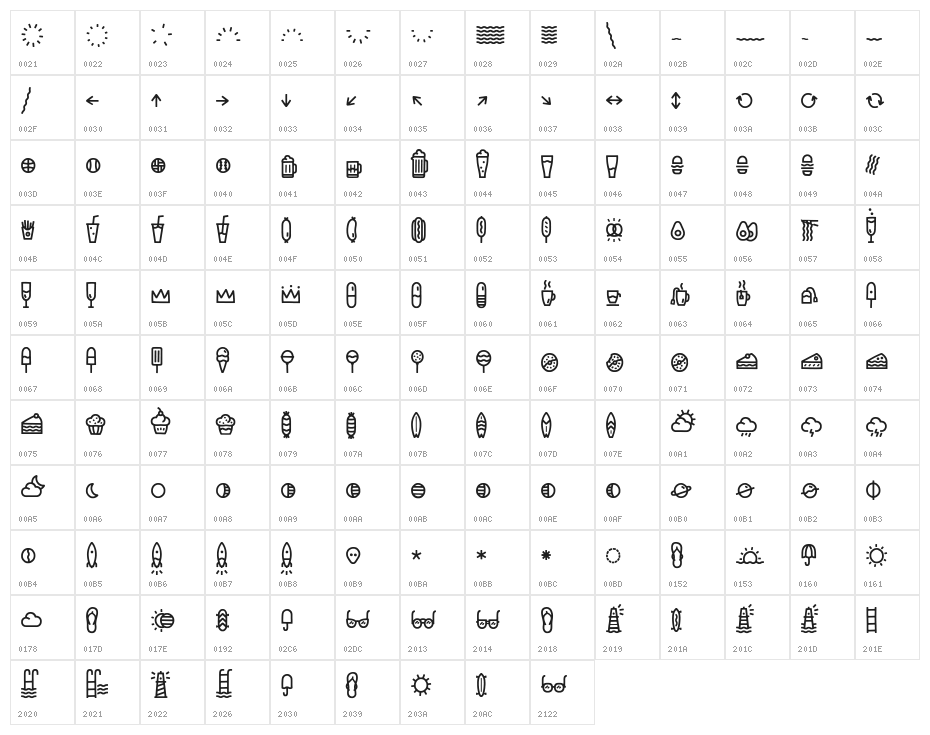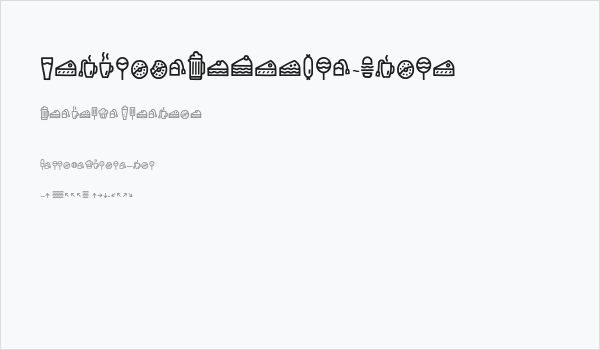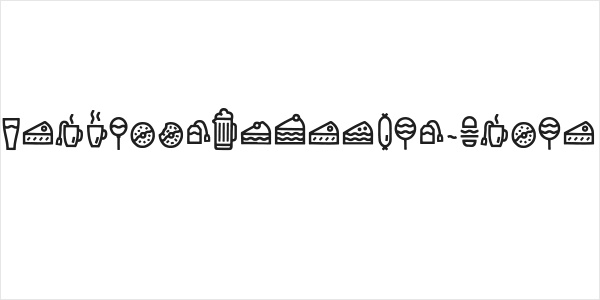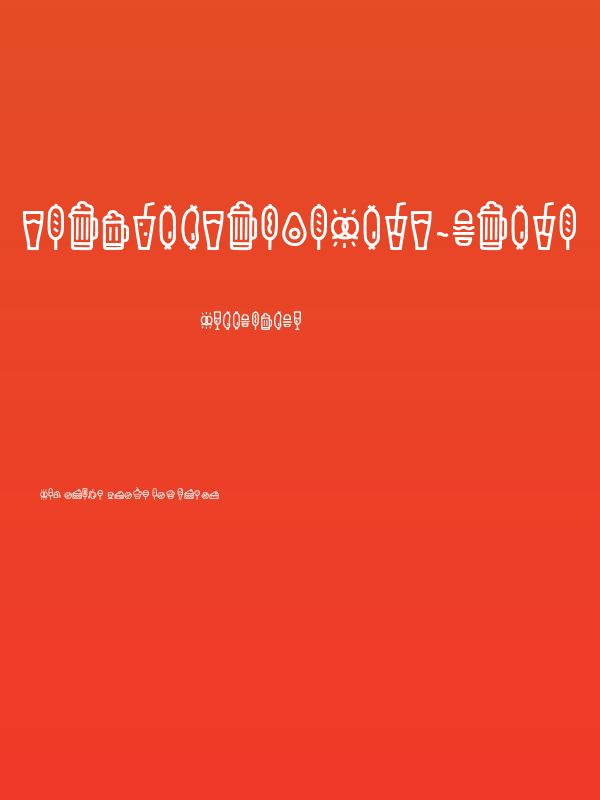
EscalopeCrustOne-Icons Font
EscalopeCrustOne-Icons Description
This collection features a playful and bold set of icons representing various food and drink items, including beer mugs, burgers, hot dogs, pretzels, and ice cream cones. The icons are outlined with a thick, consistent stroke, giving them a cartoonish and approachable appearance. The set also includes directional arrows and decorative elements like a lighthouse and waves, adding versatility to its use. The icons are designed with a uniform line weight, making them suitable for both digital and print media. Their whimsical style makes them ideal for projects targeting a fun and casual audience.
| Use Case | Icons, Branding, Menus |
| Proposed Projects | Ideal for menu designs, food-related apps, children's books, and playful branding projects. |